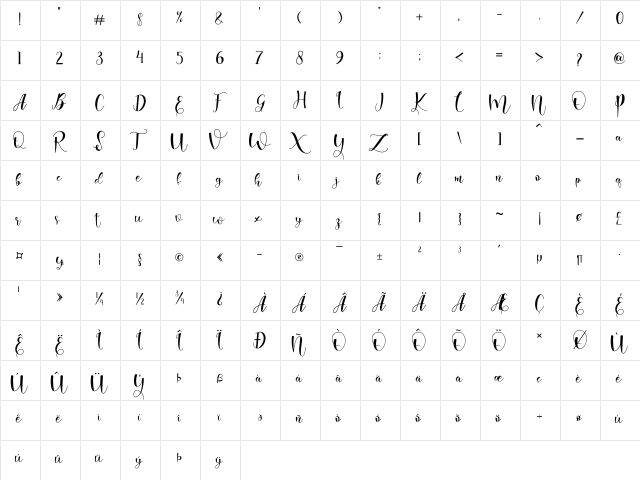
evelyne Regular Font Preview
evelyne Regular
Design Context for evelyne Typeface
evelyne is a composed and adaptable typeface that performs quietly and consistently across a wide range of design contexts.